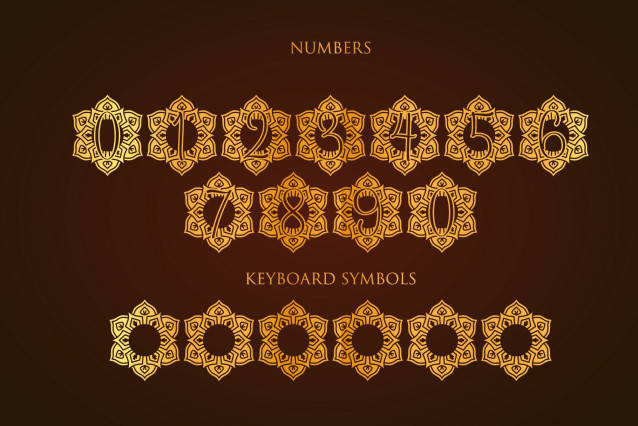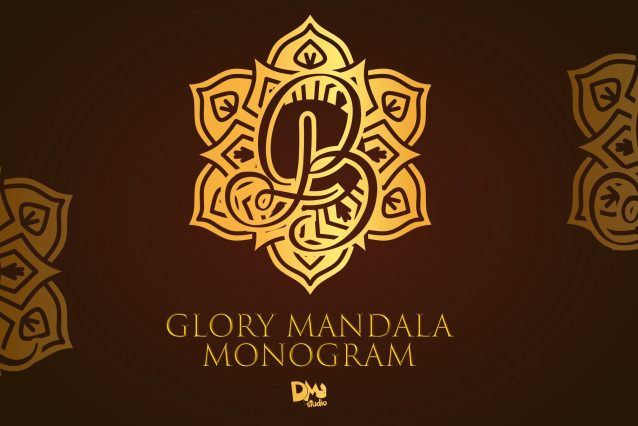
Glory Mandala Monogram Font
Glory Mandala Monogram is a regal and spiritually inspired monogram font that features detailed mandala artwork infused with a sense of strength and serenity. Designed to evoke a feeling of honor, grace, and sacred beauty, this font is ideal for meditation centers, ceremonial stationery, luxurious branding, inspirational products, and holistic packaging. Its symmetrical elegance brings a majestic calm to any design.